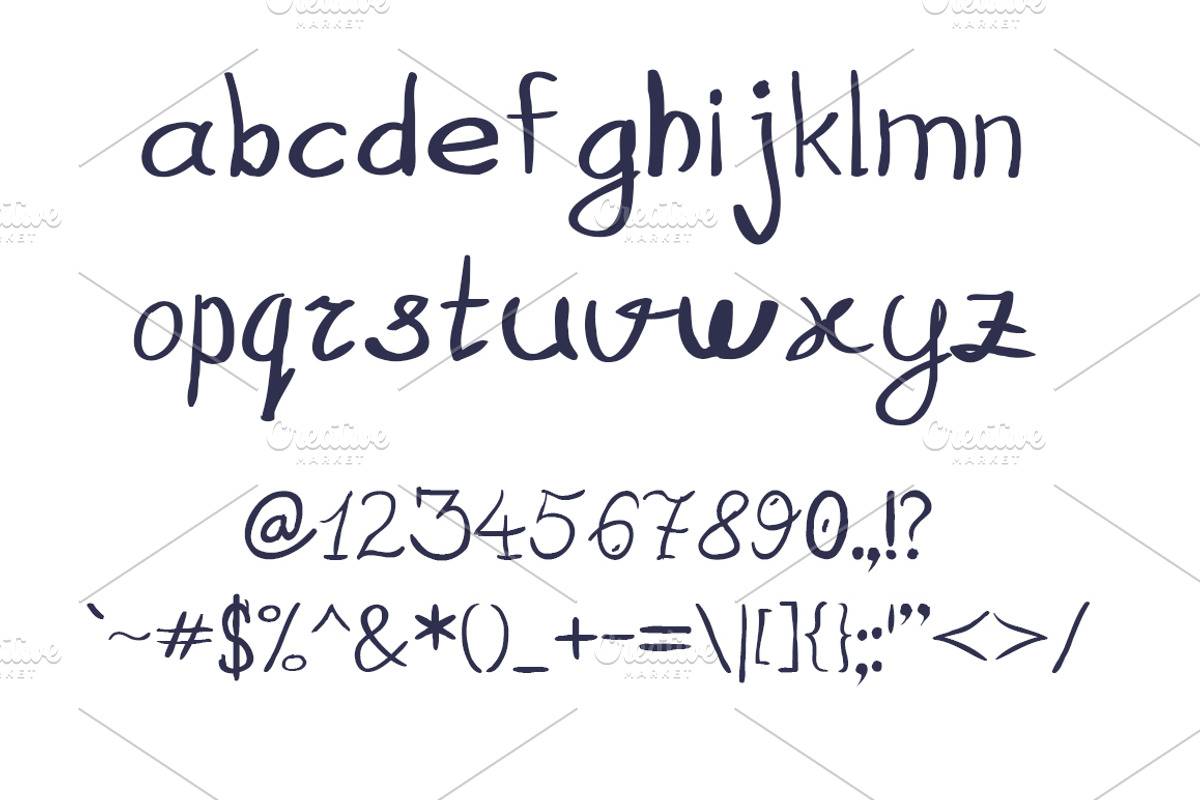
Vintage handwritten font
Vintage handwritten font by idimair is a font selected for branding, posters, packaging, typography.
Why Vintage handwritten font is worth a look
Vintage handwritten font by idimair fits naturally into Branding, posters, packaging, typography.